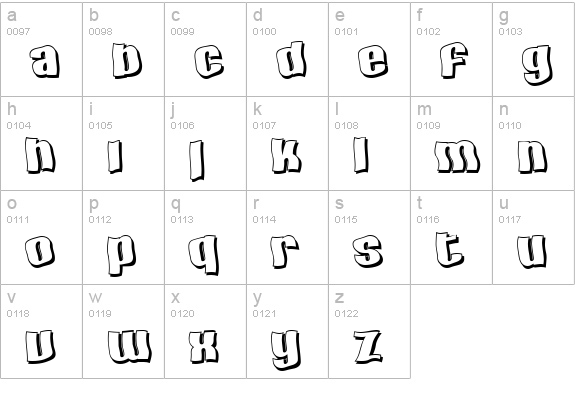
SF Hallucination Shadow Font Details
SF Hallucination Shadow font is a mesmerizing and captivating typeface that will transport you to a world of imagination and wonder. With its intricate and fluid design, this font is perfect for creating eye-catching and unique designs that will leave a lasting impression. The SF Hallucination Shadow font features a distinct shadow effect that adds depth and dimension to each letter, giving them an ethereal and otherworldly appearance. The letters seem to dance and intertwine, creating a sense of movement and energy that is truly mesmerizing. This font is not only visually striking, but also highly versatile. It is suitable for a wide range of design projects, from logos and branding to posters and social media graphics. Its bold and attention-grabbing style ensures that your message will not go unnoticed. One of the best things about SF Hallucination Shadow font is that it is completely free. Yes, you read that right! This incredible font is freely available to download at FontsMarket.com, making it accessible to designers and creatives of all levels. Whether you are a professional designer or just starting out, you can now add a touch of magic to your projects without breaking the bank. So why wait? Let your imagination run wild and download SF Hallucination Shadow font today. With its stunning design and free availability, this font is a must-have for anyone looking to add a touch of enchantment to their designs.